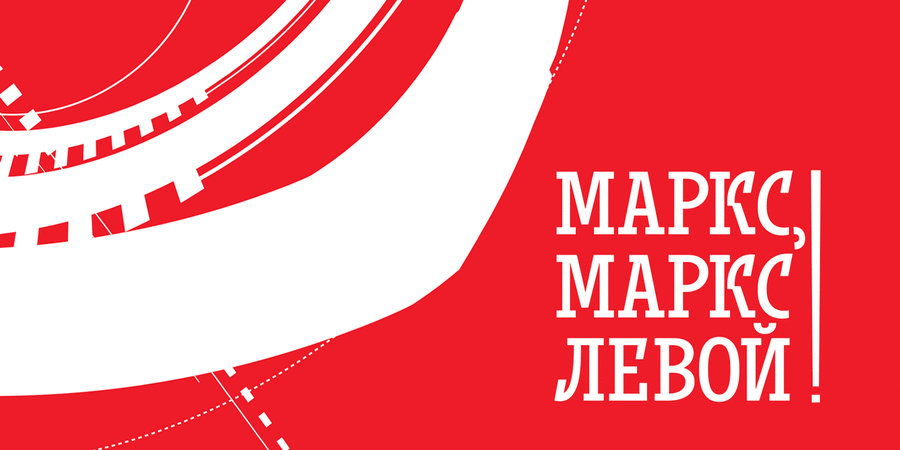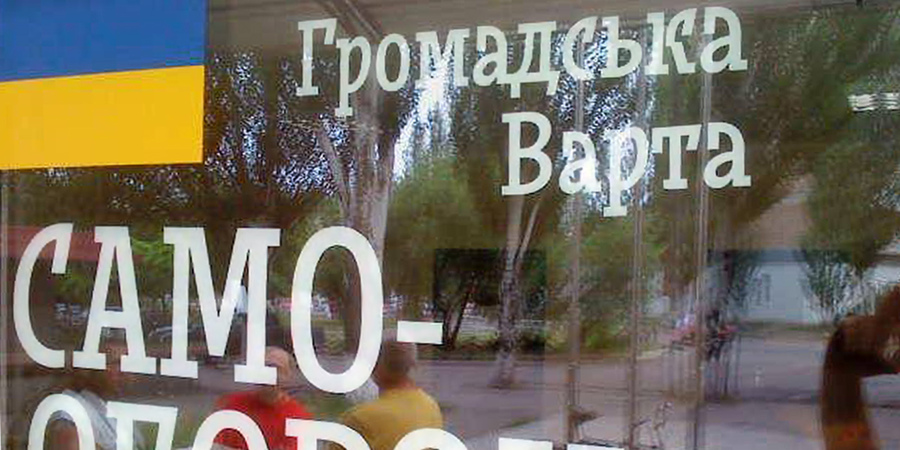
Logo font pair with UkrSans Regular (1 of 3)About Lugatype is the unique slab serif font with narrow proportions. It has strong masculine Ukrainian style. This typeface will be the best solution for posters, signage, magazine, product branding, corporate branding, logos and titles. Lugatype was designed by Kyrylo Tkachov in 2014.
Features of font family LugatypeThe hit of the decade:
Hit of 1920s Hit of 1930s Lugatype supports 60 languagesUkrainian, English, German, French, Portuguese, Spanish, French, Russian, Dutch, Italian, Swedish, Finnish, Belarusian, Serbian, Bulgarian, Albanian, Afrikaans, Basque, Breton, Valencian, Galician, Gaelic (Scottish), Danish, Indonesian, Irish, Icelandic (Win), Karakalpak, Catalan, Norwegian, Occitan, Rhaeto-Romance, Sami Lule, Tswansky, Uzbek (Lat.), Faroese, Frisian, Chamorro, Estonian (Win), South Sami, Abazin, Avar, Agul, Adyghe, Darginsky, Ingush, Kabardino-Circassian, Kabardian, Karachay-Balkar, Kumyk, Lak, Lezghian, Macedonian, Mordovian-Moksha, Mordovian-Erzya, Nogai, Rutulian, Tabasaran, Tatar, Tsakhur, Chechen Functions of font family LugatypeTypeface use in layout:
Associations for font family LugatypeTypeface personality and character:
tall, original, notable, splashy, solid, accurate, flat, architectural, sharp, daring, distinctive, cutting, ethnic, traditional, Cossack, free, proud, picturesque, artistic, wooden, warlike, brave, gallant, manly, dynamic, freewheeling, strong, rebellious, heroic, temperamental, motivating, active, ambitious, severe, rude, rigid, crisp, iron, workman, beery
architecture, sculpture, history, literature, theater, vodka, alcohol, reconstruction, tattoo, souvenir, Cossack, hetman, chieftain, snack, spice, beer, tavern, monument, memorial, weapons, protection, craft, blacksmith, tobacco, battle, cinema, workman, pub, trophy, reward, embroidered, bank note, coin, pepper, tourism, graphics, illustration, flag Typeface associated with age: